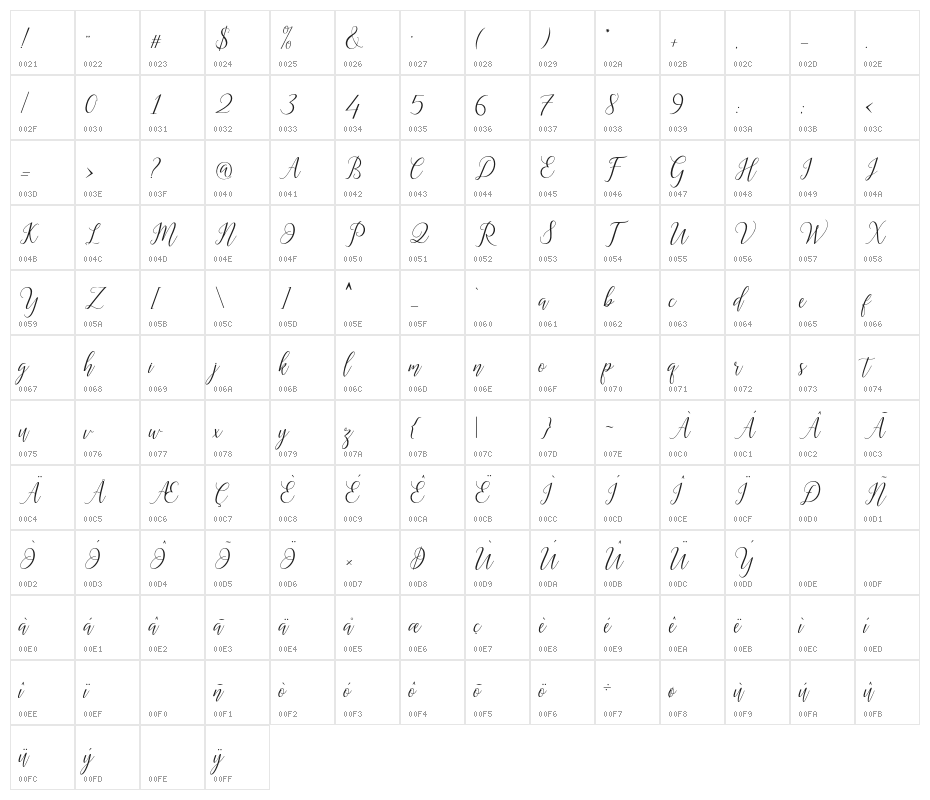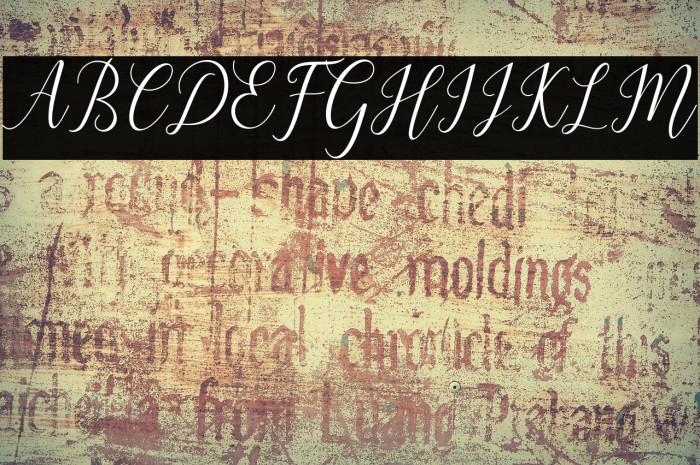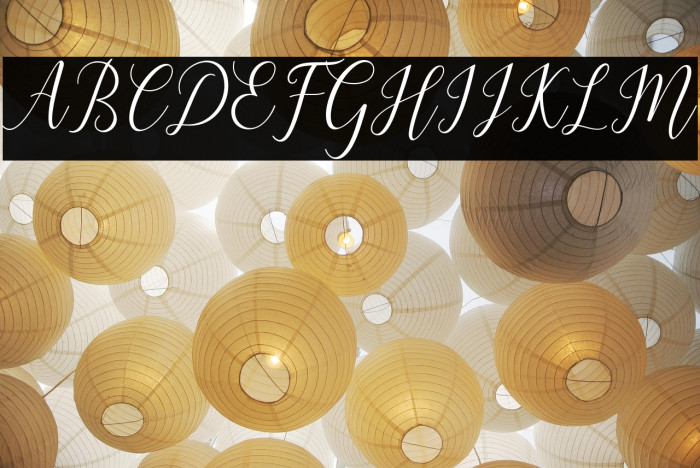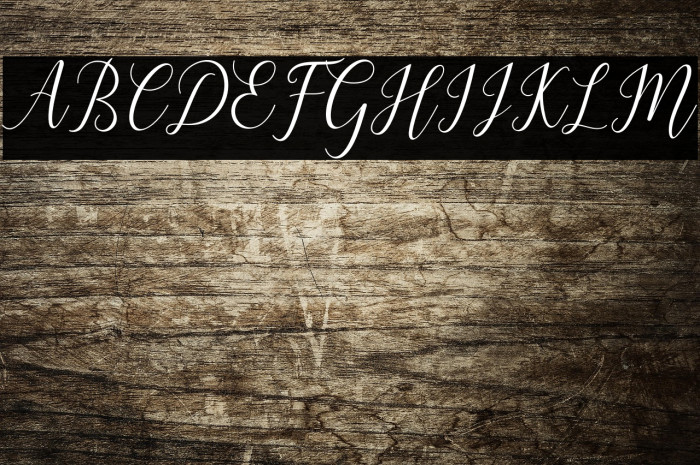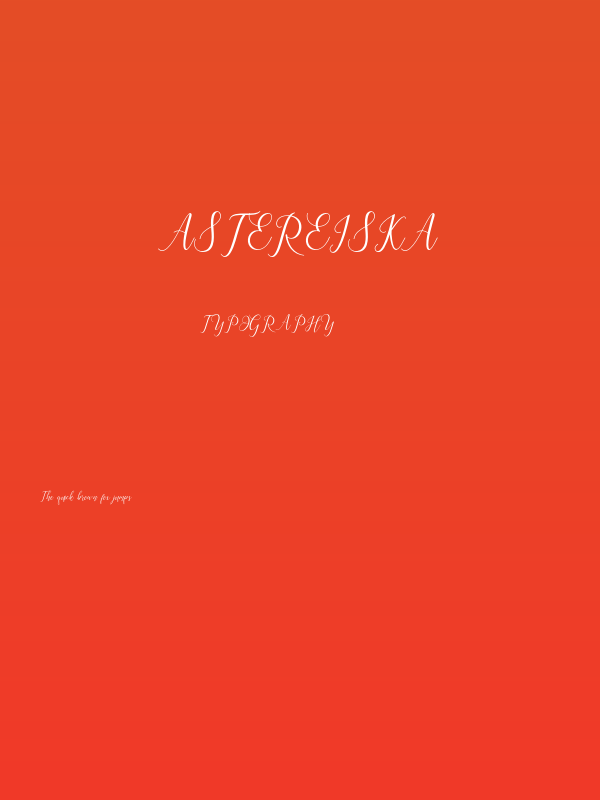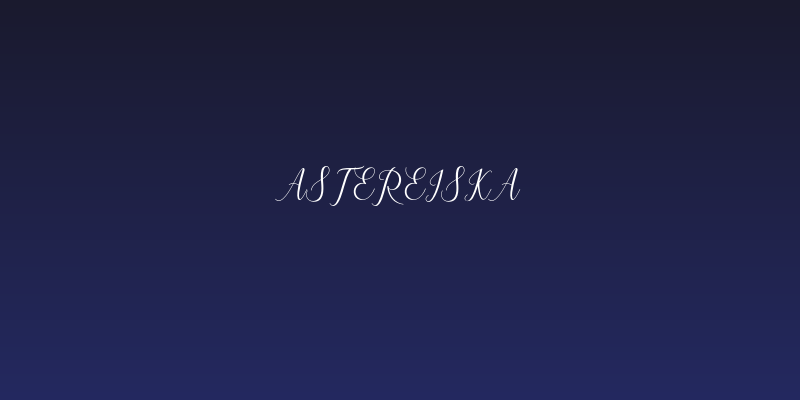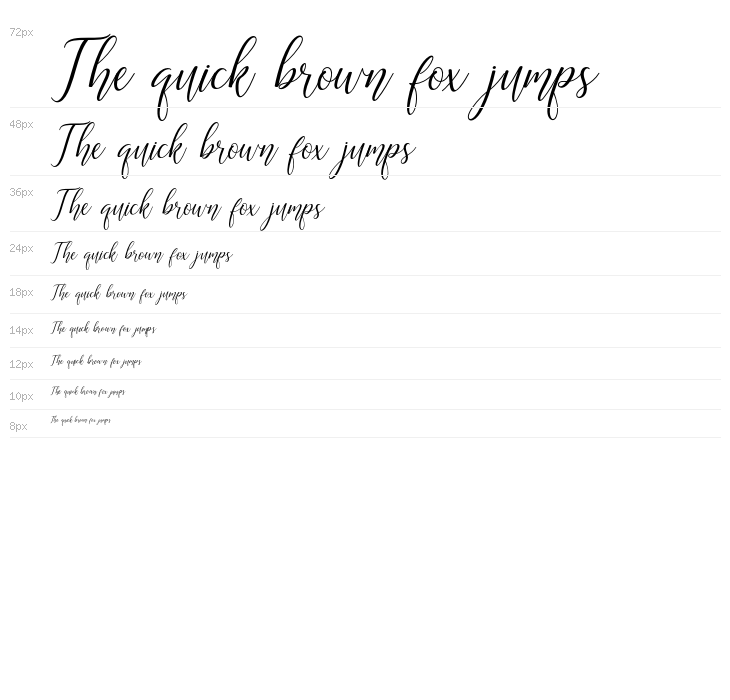
Astereiska Font
Astereiska Description
This elegant script font features flowing, cursive letterforms with a sophisticated and graceful appearance. The uppercase letters are characterized by their sweeping curves and delicate loops, while the lowercase letters maintain a consistent fluidity, enhancing the overall aesthetic. The numerals are designed with a similar flair, ensuring a cohesive look across all characters. Special characters are thoughtfully integrated, maintaining the font's refined style. This font's delicate strokes and high contrast between thick and thin lines add to its charm, making it ideal for projects that require a touch of elegance and sophistication.
| Proposed Projects | Ideal for wedding invitations, elegant branding, high-end product packaging, and sophisticated editorial design. |